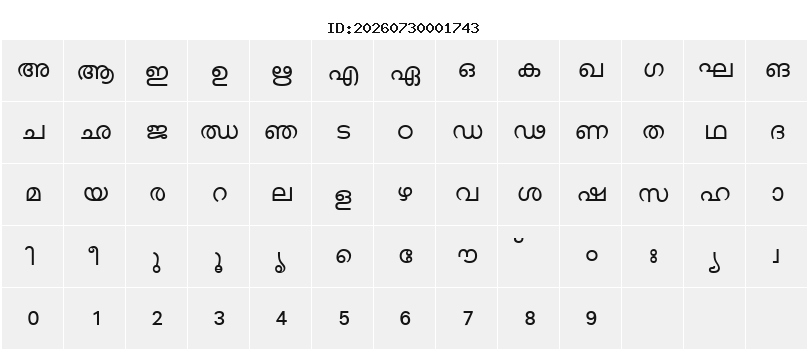
• Font Name: KERALAX-MAL
• Font ID: CDAC:ML-TTKarthika Normal
• Full Font Name: Keralax - Malayalam
• Version: 1.0 Thu Aug 24 16:33:19 1995
• PostScript Name: ML-TTKarthika Normal
• Character Count: 174
About KERALAX-MAL.ttf
KERALAX-MAL.ttf is a modern, elegant sans-serif font designed for ultimate readability and visual harmony. Perfect for branding, headlines, web design, and print materials.